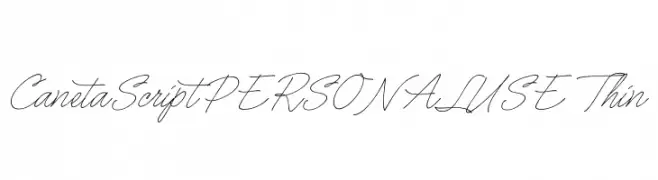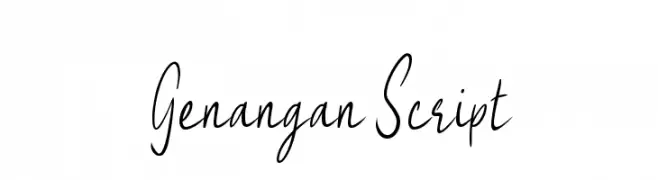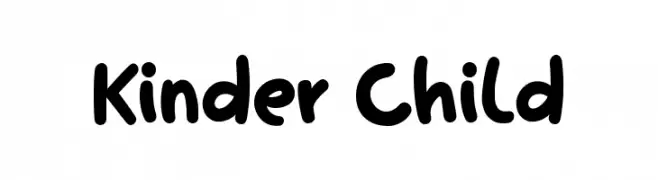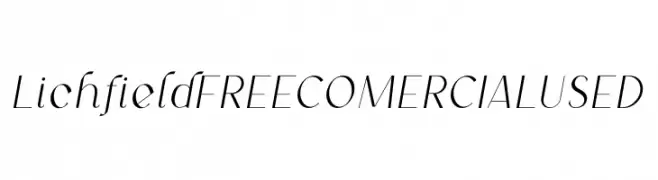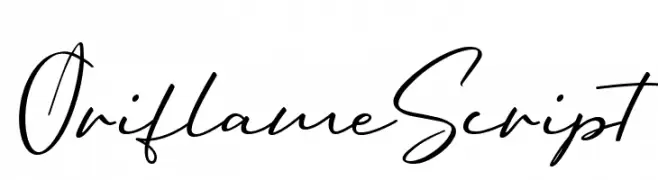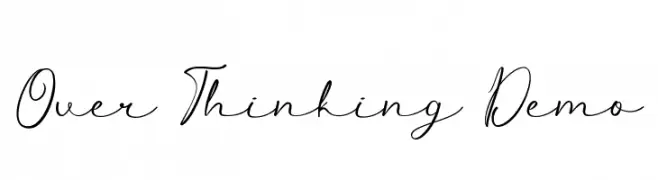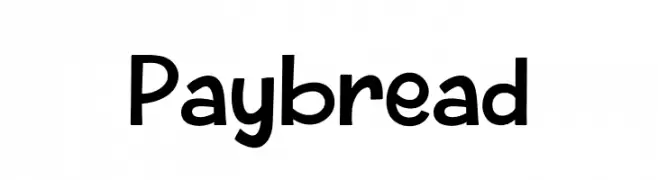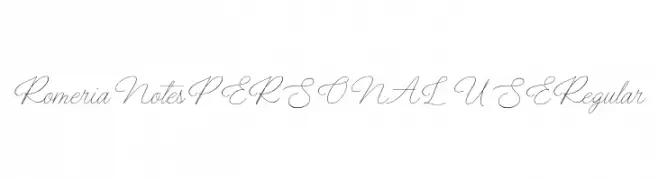
A refined, high-contrast font with elegant, slightly condensed characters.
A playful, rounded font with a hand-drawn feel, perfect for child-friendly designs.
A playful, rounded font with a friendly and whimsical style.
An elegant and fluid script font with smooth, flowing strokes.
An elegant, flowing script font with elongated, slanted letterforms.
An elegant script font with flowing, interconnected letters and a sophisticated style.
A playful, hand-drawn font with a whimsical and friendly style.
An elegant, flowing script font with a natural, handwritten style.
A thin, elegant script font with flowing, handwritten style.
A delicate, cursive script font with a handwritten style.